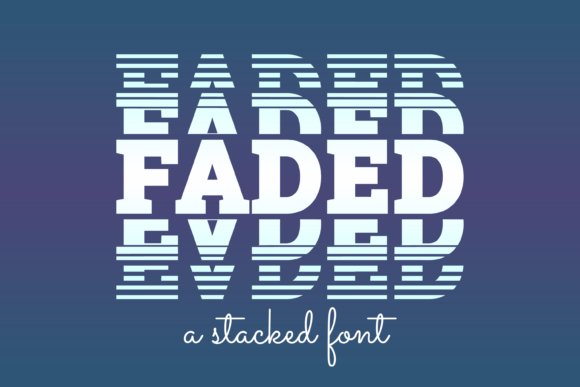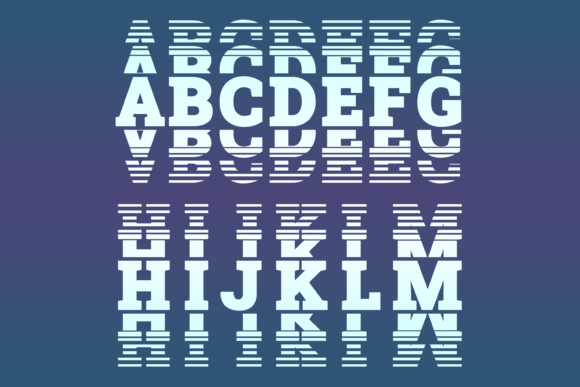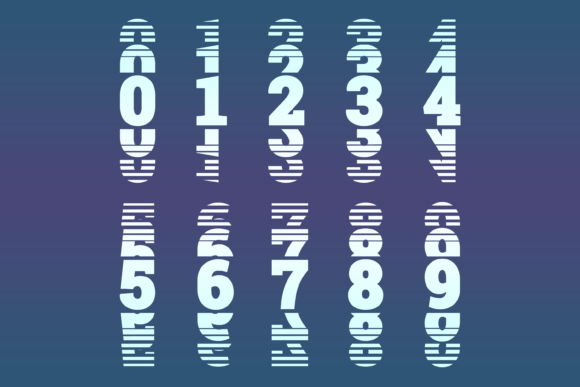
Faded Font
Faded is an incredibly cool display font. Whether you use it for custom designs, DIY crafts, or just any creation that requires a lovely touch, this font will be an amazing choice!